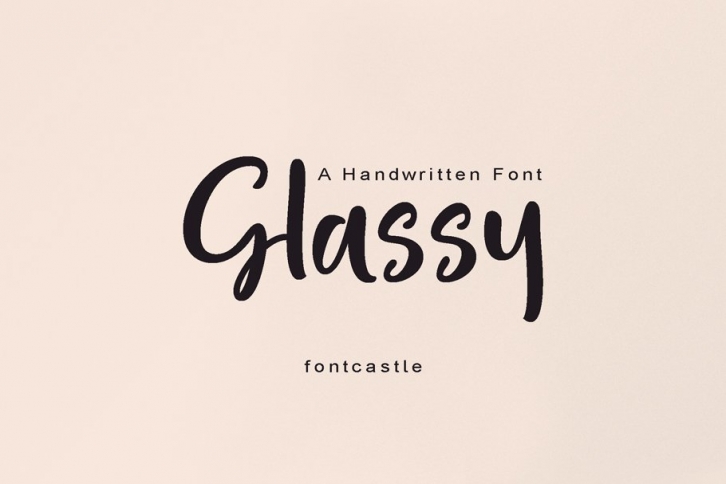
Glassy FONT Download
Glassy is a bouncy handwritten font. It is defined by smooth curves and is perfect for fashion branding or editorial designs. Add it confidently to your projects, and you will love the results.
This gorgeous font includes all lowercase and uppercase characters, numbers, punctuation, an array of standard ligatures and a selection of international characters as well (please type in the preview below to see if I have what you need!)